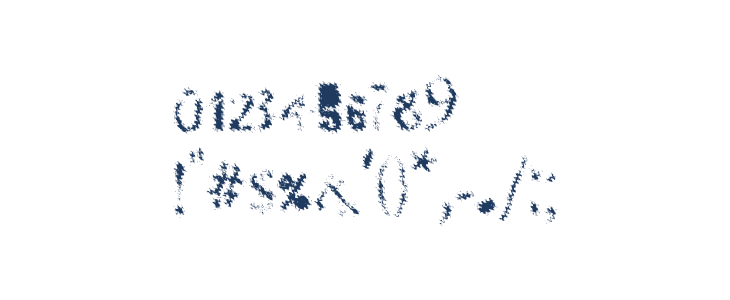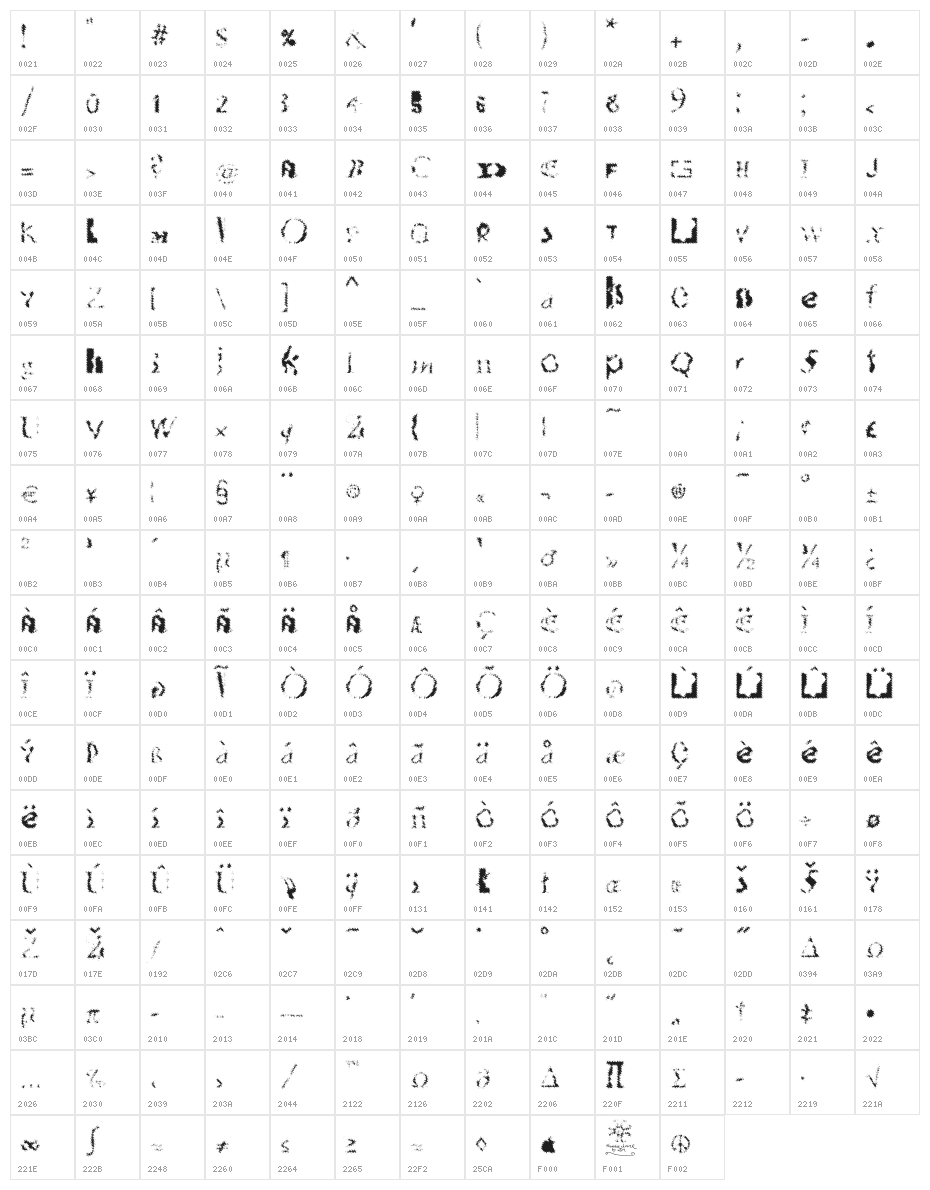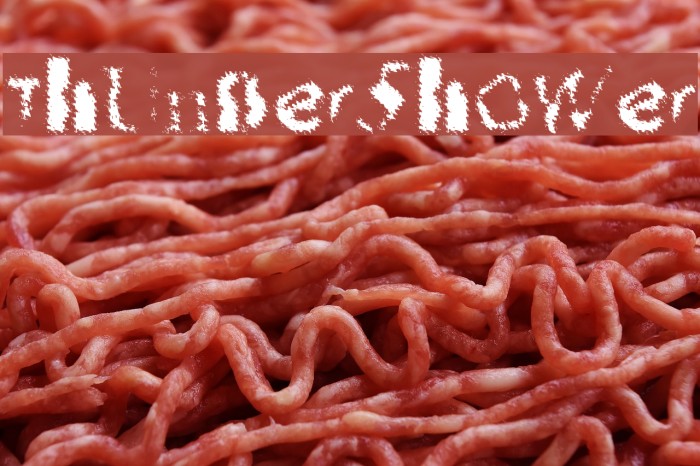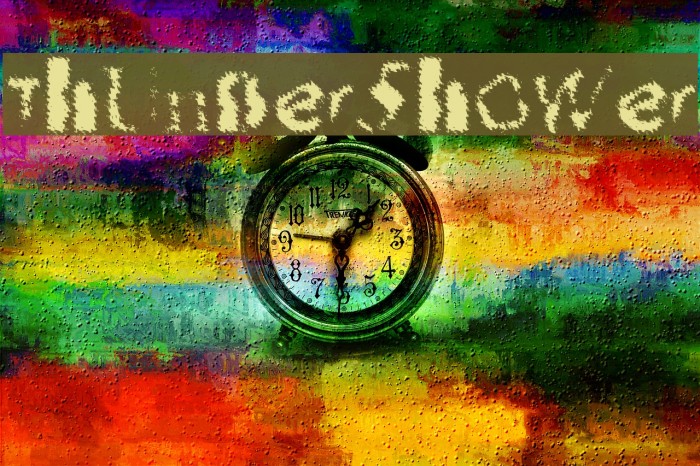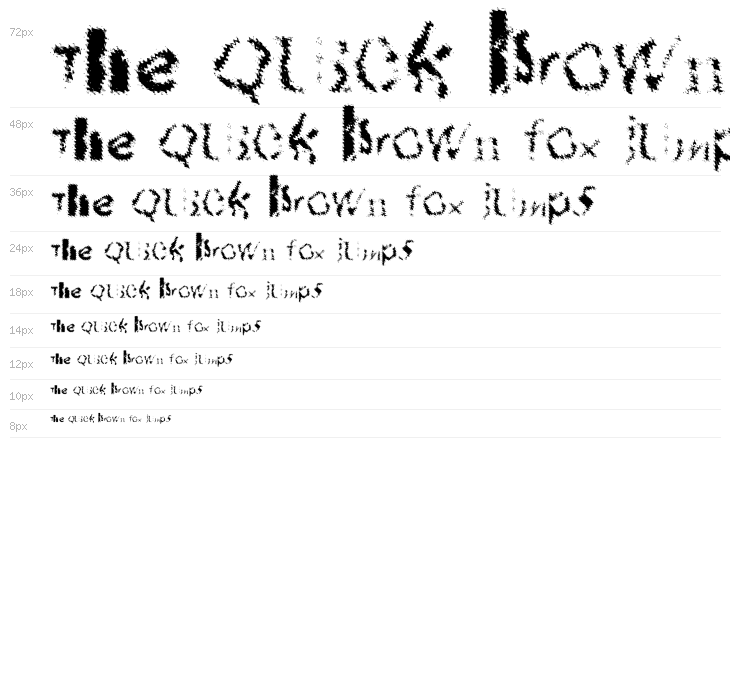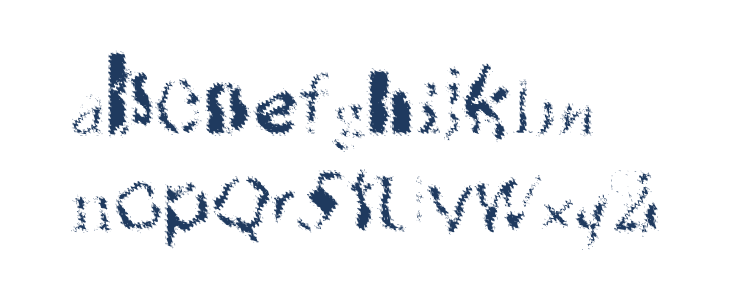
Thundershower Font
Thundershower Description
This font features a unique, distressed style that mimics the appearance of letters being eroded or weathered by a storm. Each character is heavily textured, giving the impression of being worn or splattered, which adds a dynamic and chaotic feel to the text. The uppercase and lowercase letters maintain a consistent design, with jagged edges and irregular shapes, creating a sense of movement and energy. The numbers and special characters follow the same aesthetic, ensuring a cohesive look across all elements. This font is ideal for projects that require a bold, eye-catching statement, such as posters, album covers, or themed event invitations.
| Proposed Projects | Ideal for posters, album covers, themed event invitations, or any project needing a bold, eye-catching statement. |